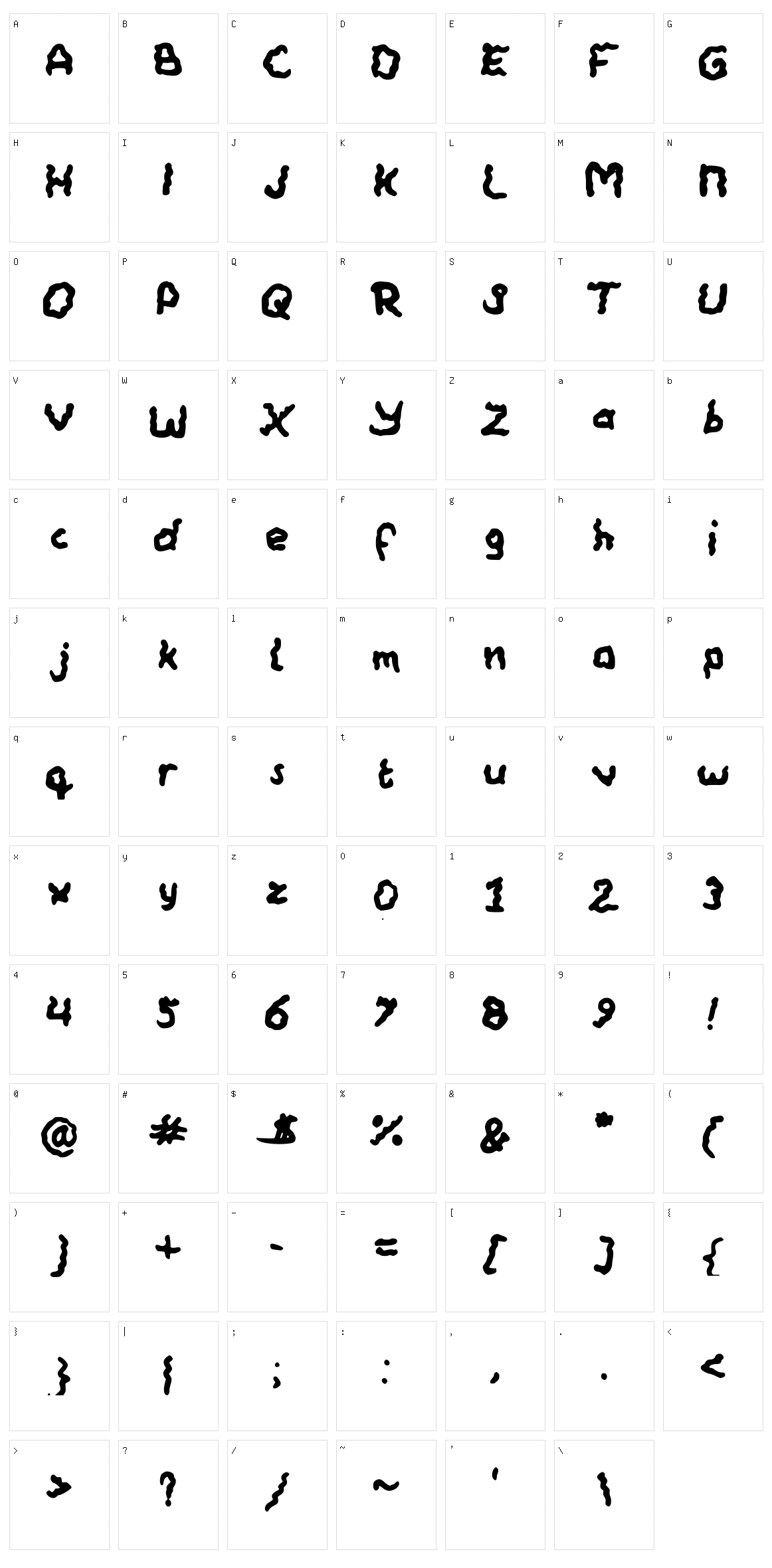
The free font Wobbly is carefully designed by xJoseee ♥, showcasing a thoughtful balance of creativity and usability and falls under the Distorted font style. When you download the ZIP file, it contains only 19.86 KB of font files, making it lightweight and quick to download. Please review the license details below to understand permitted usage and distribution rights. If license information is not available, we recommend using this font for personal projects only or contacting the author directly for commercial usage permissions.